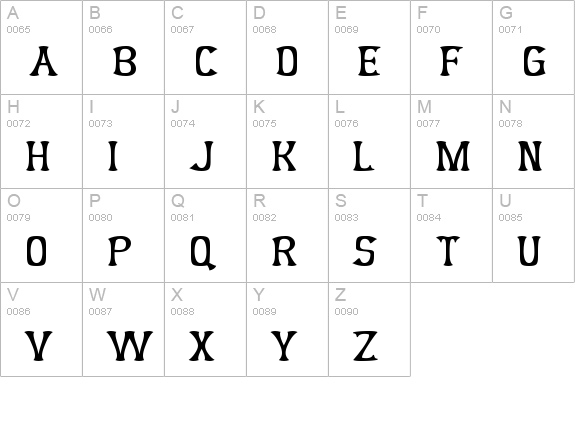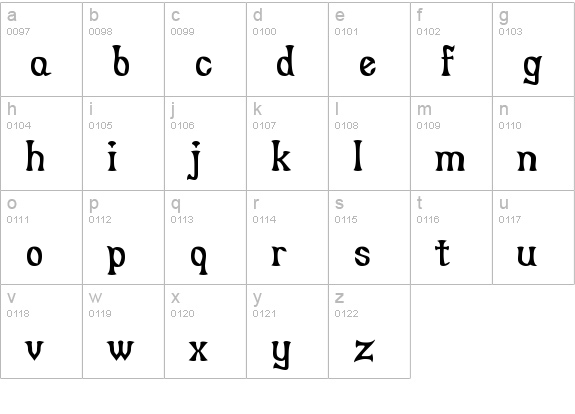
UUeirdie Bold is a strong, high-contrast variant in the UUeirdie typeface family \xE2\x80\x94 well suited to headlines, attention-grabbing titles, and strong calls-to-action.
Introducing UUeirdie Bold, a captivating and eccentric display font that will make your designs stand out from the crowd. This unique font is perfect for those seeking a touch of quirkiness and originality in their projects. UUeirdie Bold's bold and distinctive letterforms are sure to capture attention and leave a lasting impression. With its playful yet sophisticated aesthetic, UUeirdie Bold is the ideal choice for a variety of design applications, including branding, logos, posters, headlines, and more. Whether you're looking to add a whimsical touch to a children's book cover or create a bold statement for a music festival flyer, this font has got you covered. One of the best things about UUeirdie Bold is that it is available for free download at FontsMarket.com. Yes, you read that right - this incredible font can be yours without spending a dime. FontsMarket.com offers a vast collection of high-quality fonts, and UUeirdie Bold is just one of the many gems waiting to be discovered. Designed with utmost care and attention to detail, UUeirdie Bold ensures that every character is meticulously crafted to perfection. Its sleek and modern design, combined with its quirky elements, makes it a versatile typeface that can adapt to any creative vision. So, why settle for ordinary when you can embrace the extraordinary with UUeirdie Bold? Unleash your imagination and let this font take your designs to new heights. Download UUeirdie Bold for free at FontsMarket.com and get ready to make a bold statement that will leave a lasting impression.